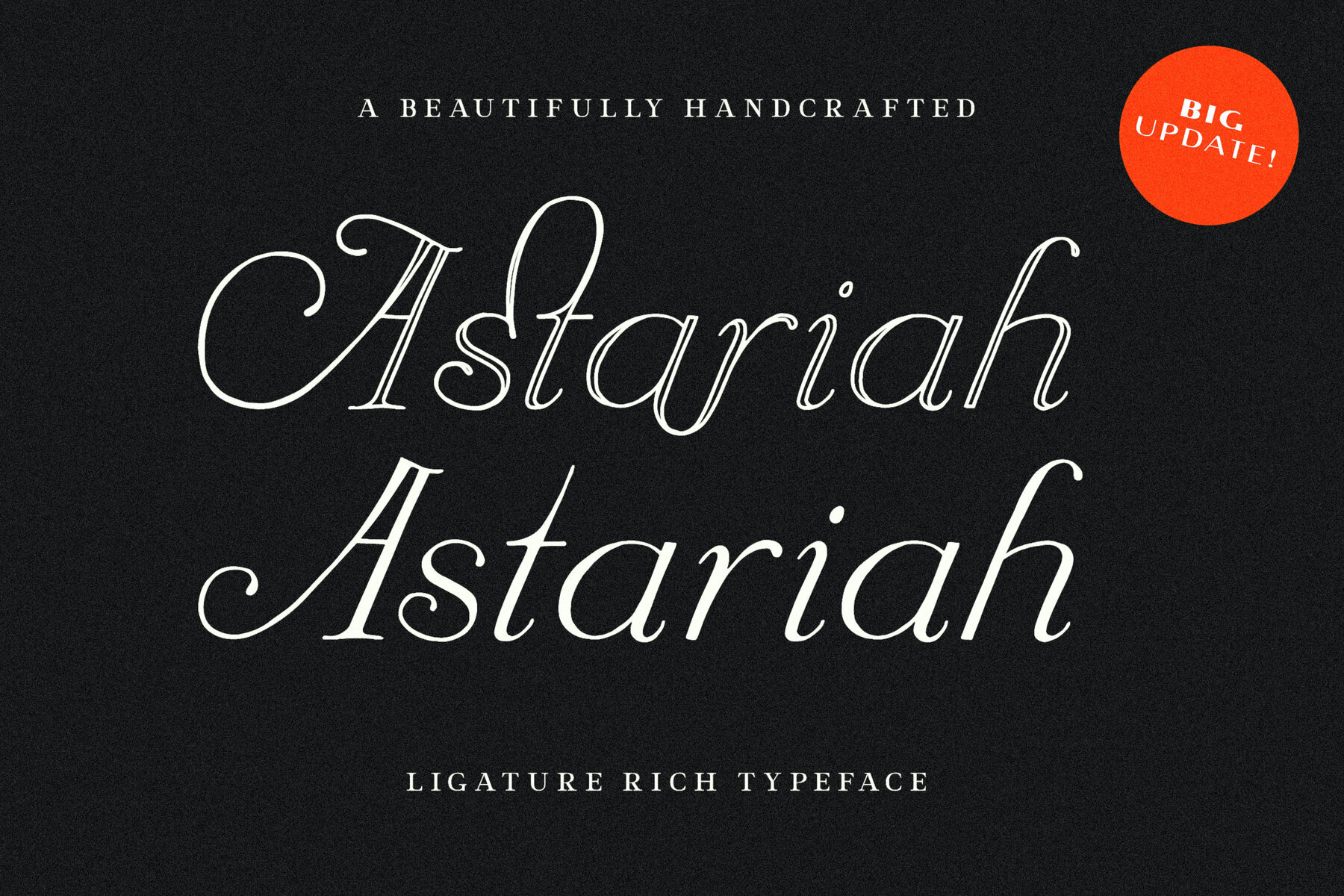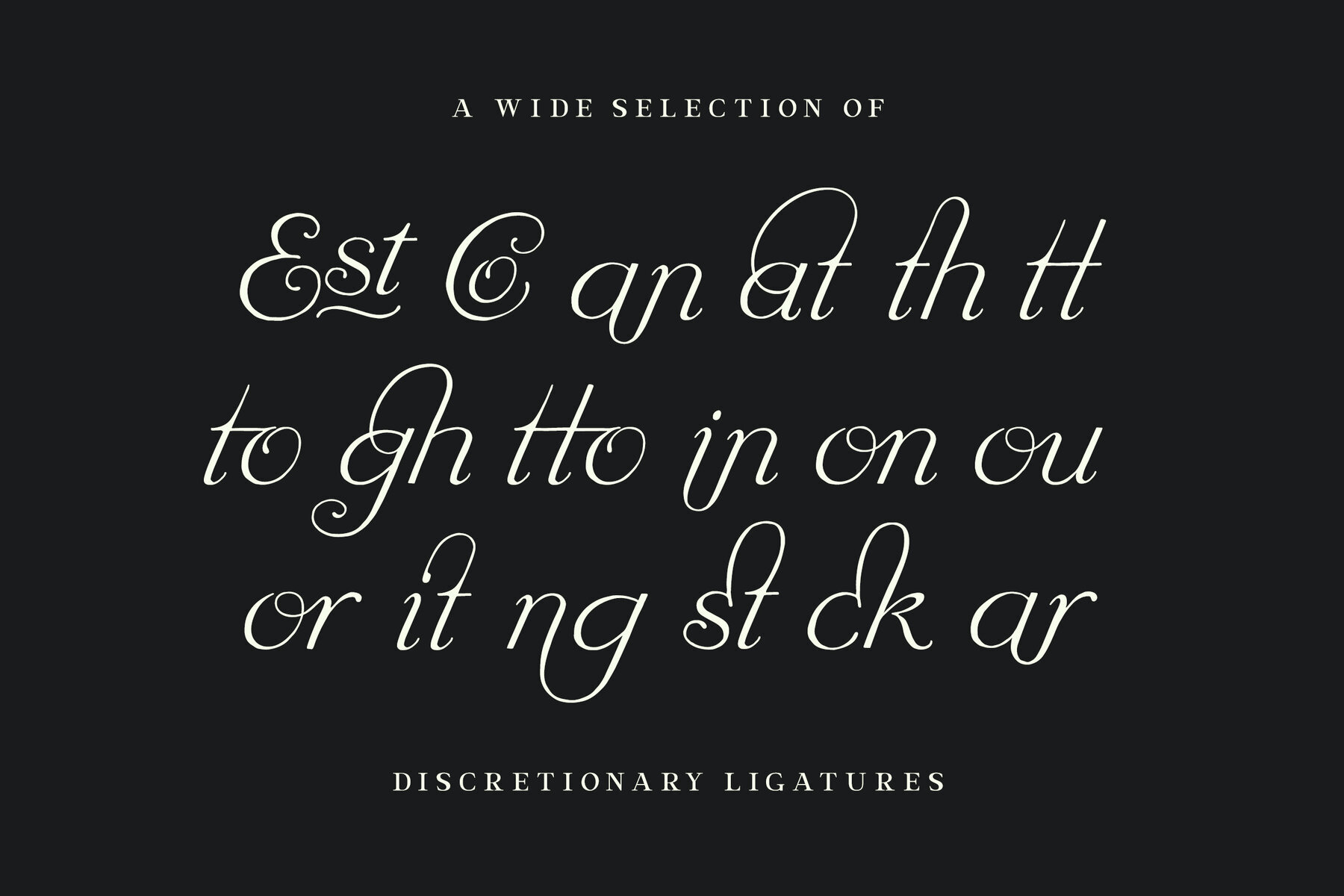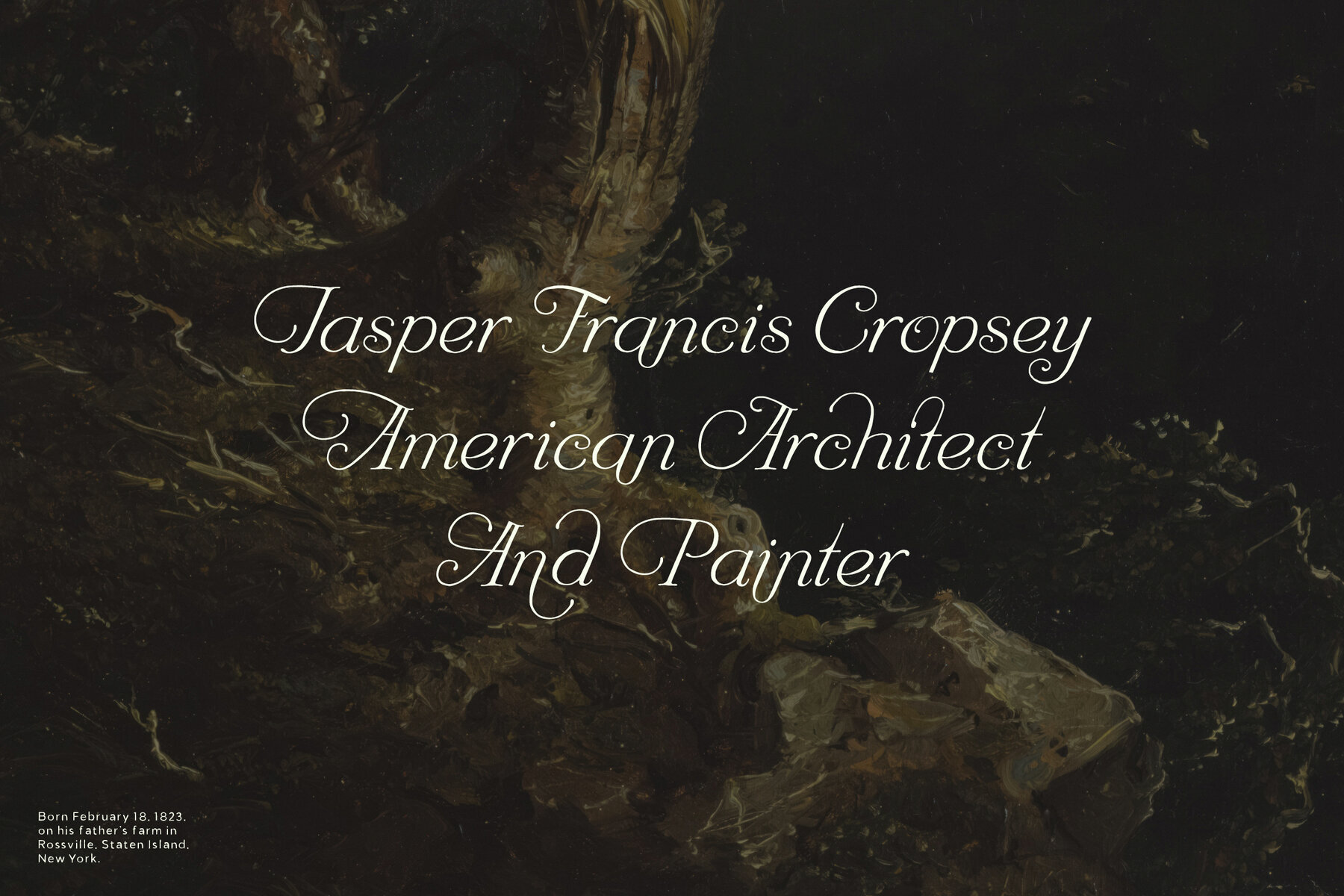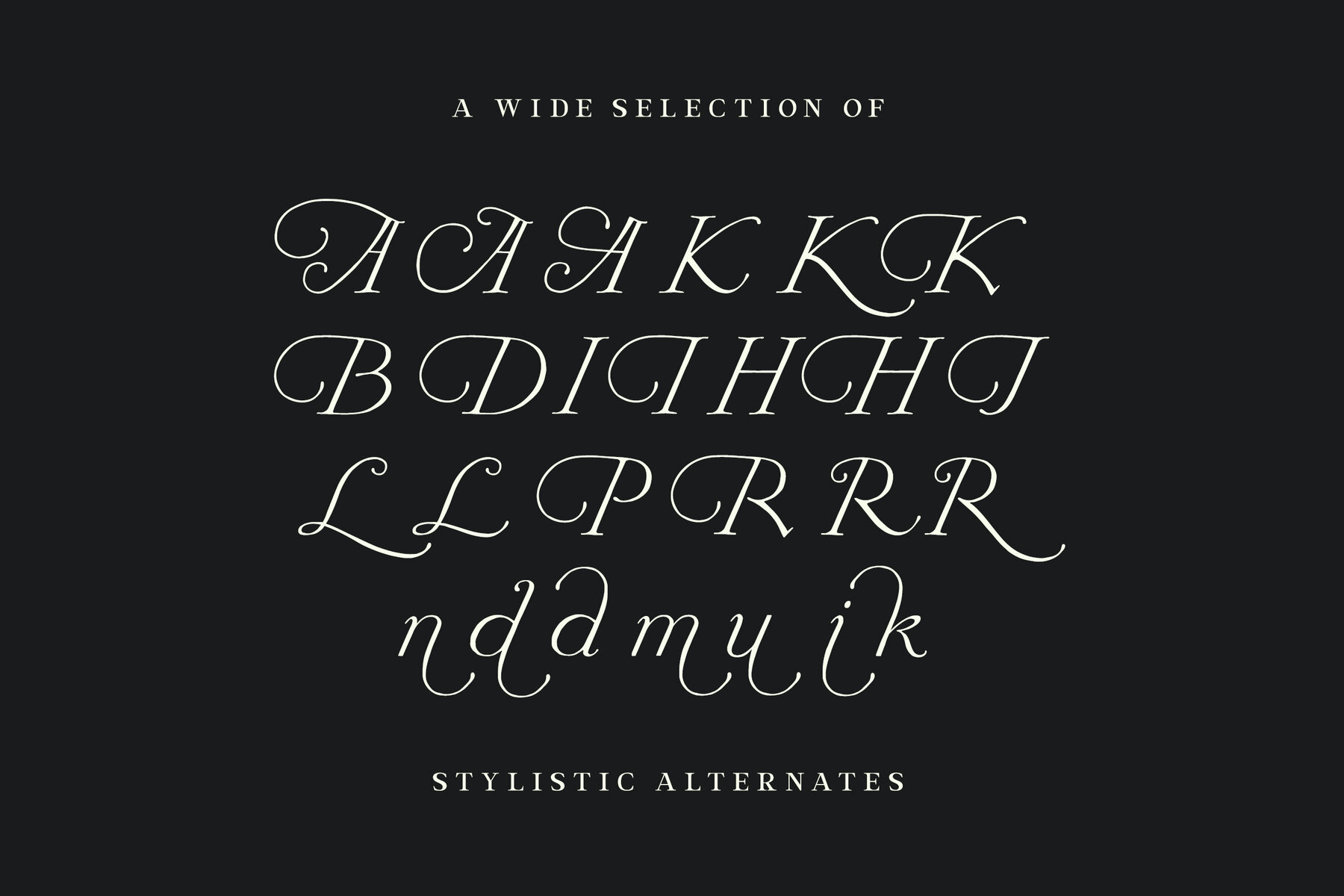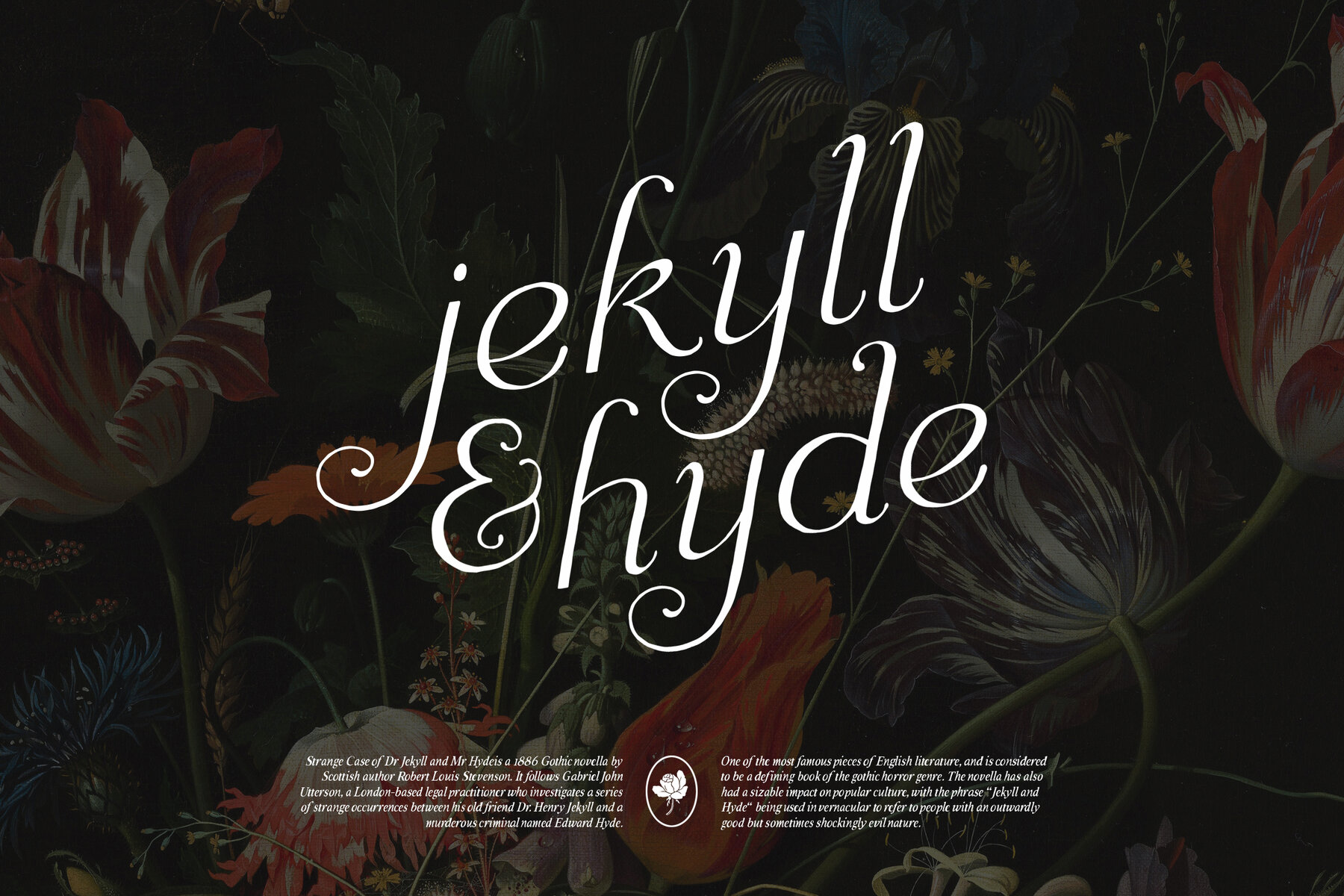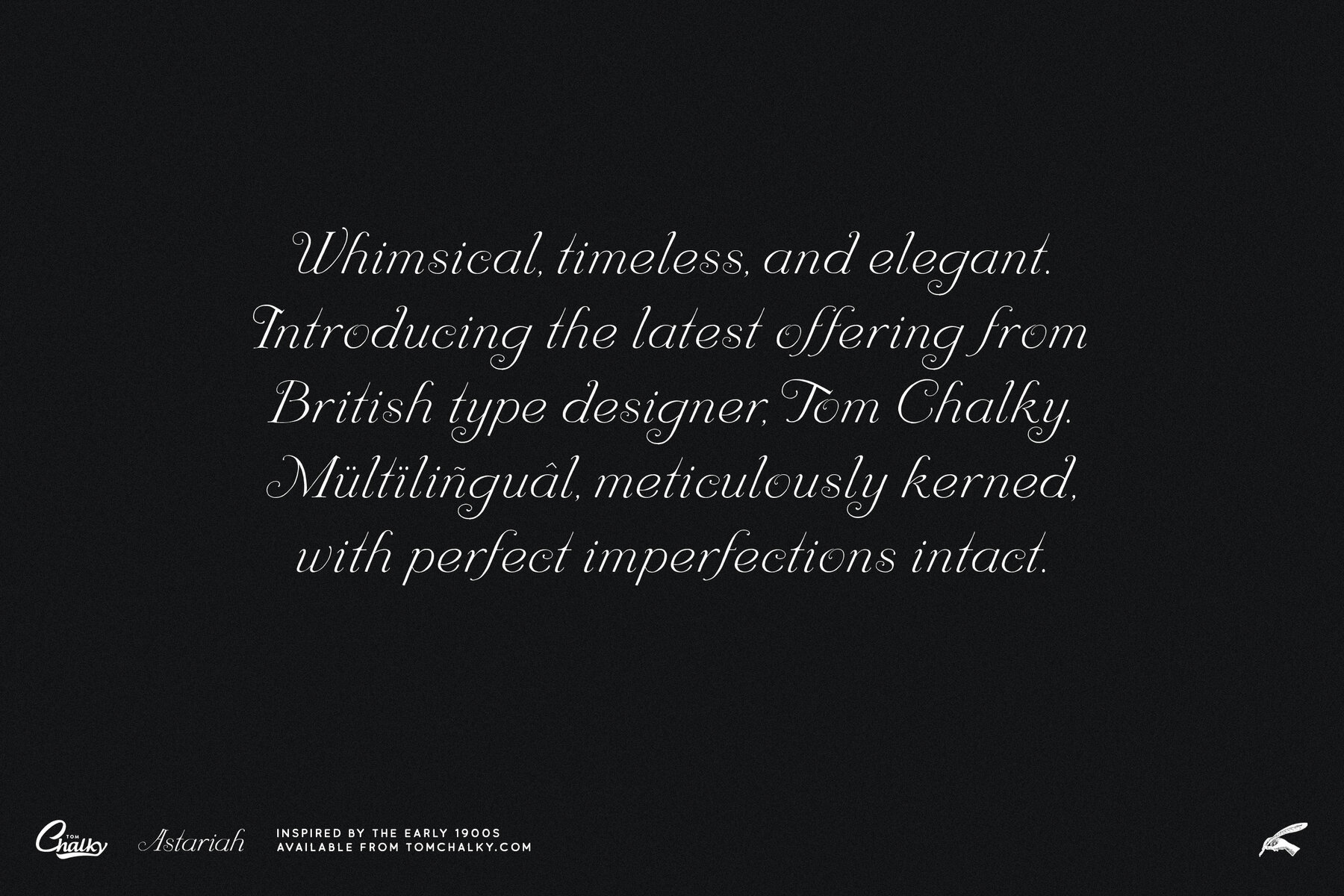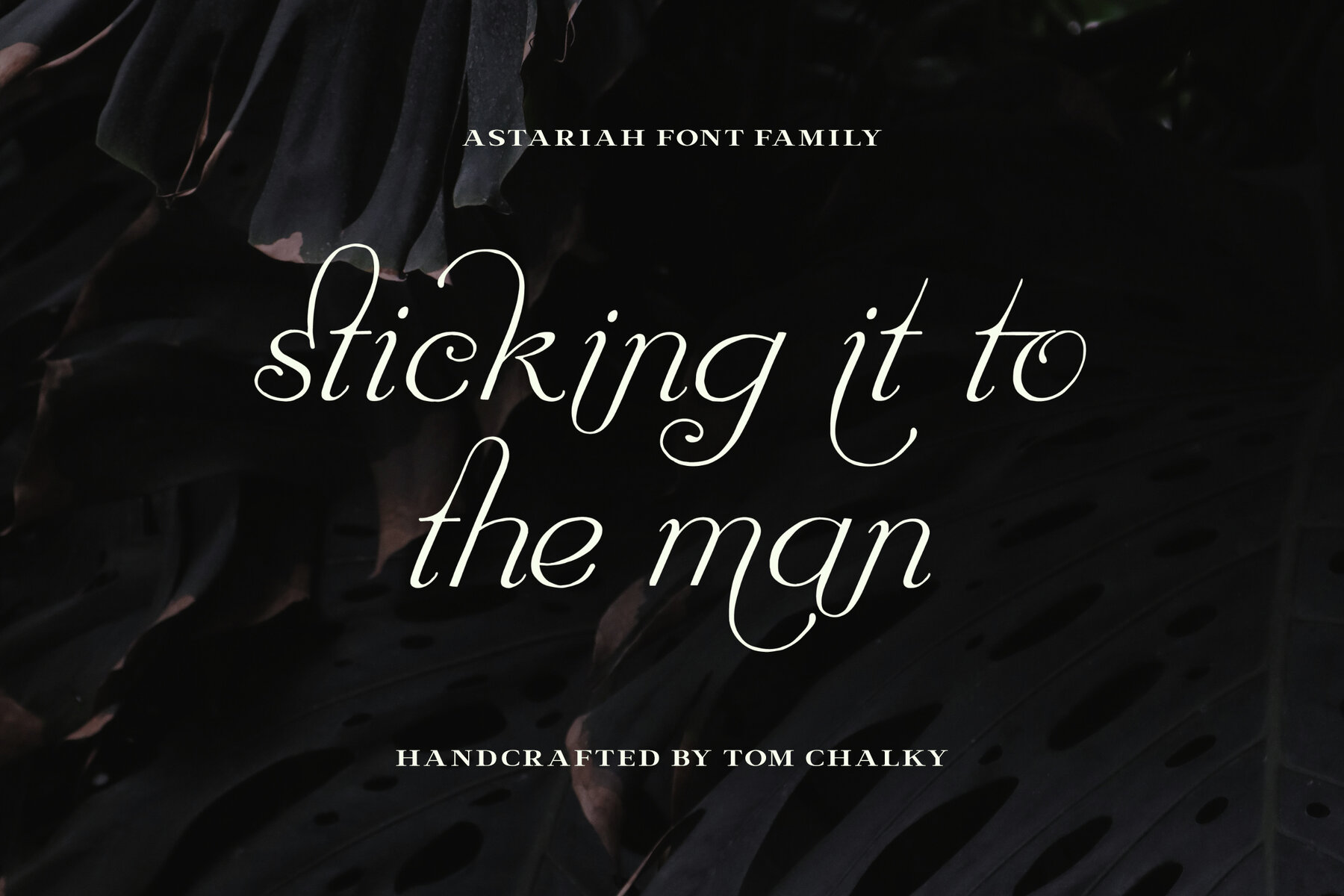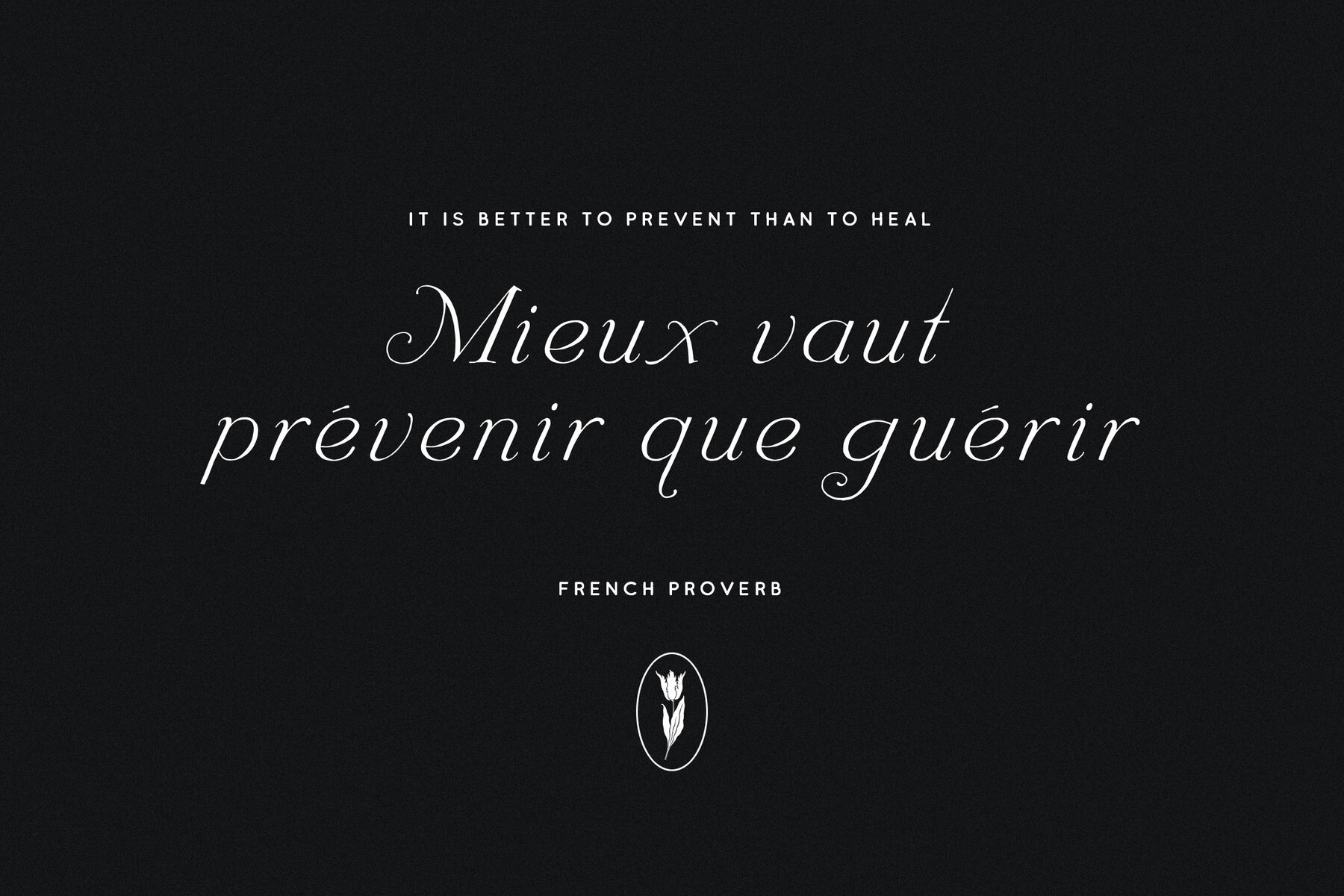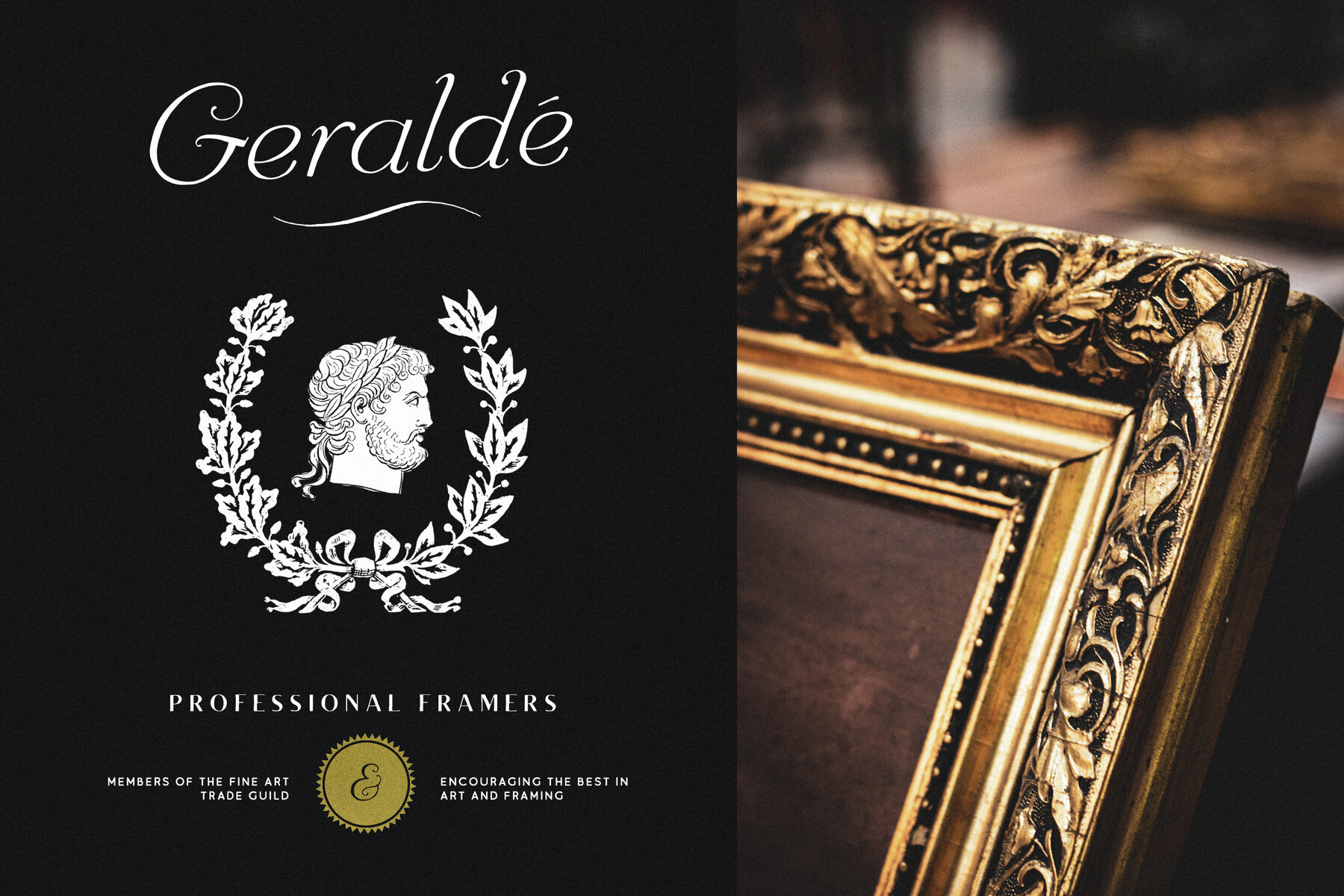
Astariah Font
Enchanting, enduring, and refined. These three words are often used to capture the essence of yours truly, and more recently, my latest font, Astariah - A typeface that exudes timeless vintage charm! Drawing inspiration from the typefaces of the late 1800s, Astariah effortlessly infuses your creations with a delightful touch of eccentric elegance. UPDATE: Astariah has undergone a transformation, now featuring a new 'Outline' style that seamlessly complements its original form. Additionally, both styles offer a wide array of discretionary ligatures and stylistic alternates, unlocking many more creative possibilities for its users